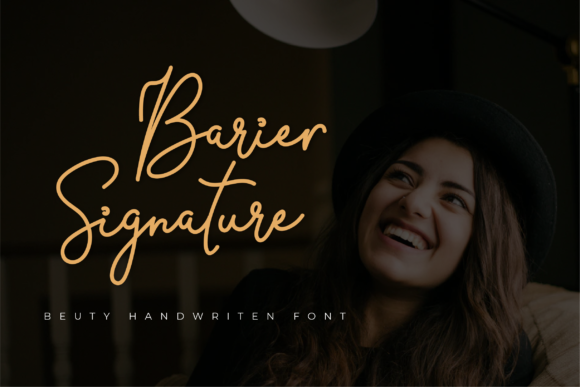
Barier Signature Font for Elegant Web Design
Elevating Hero Sections with Barier Signature Script Handwritten Fonts
When integrating Barier Signature into high-impact hero sections, this Script Handwritten typeface serves as a powerful anchor for visual hierarchy and immediate brand recognition. As web designers, we understand that the first three seconds of user engagement are critical, and utilizing premium Fonts like Barier Signature can significantly reduce bounce rates by establishing an instant emotional connection. This font simplifies elegance into one truly outstanding handwritten aesthetic that translates exceptionally well to large-scale digital displays, where the intricate details of the letterforms can be appreciated without sacrificing legibility.
In conversion-focused landing pages, Barier Signature functions best as a primary display font for main headlines or value propositions. Its flowing, organic structure contrasts effectively against rigid grid layouts and geometric sans serif body copy, creating a dynamic tension that guides the user’s eye toward key content areas. For SaaS founders or creative entrepreneurs building personal brands, this typeface adds a layer of bespoke craftsmanship that generic system fonts cannot replicate. When deploying this font in hero banners, ensure you are utilizing modern webfont formats like WOFF2 to maintain performance speeds while delivering crisp rendering on retina displays. The versatility of Barier Signature allows it to bridge the gap between luxury editorial design and accessible digital storytelling, making it an ideal choice for brands that need to communicate sophistication without appearing aloof.
Optimizing Barier Signature Readability for Mobile Interfaces
Implementing Barier Signature within responsive mobile environments requires careful attention to sizing and spacing to ensure this Script Handwritten style remains clear across all viewport widths. While desktop layouts offer ample horizontal space for elaborate swashes, mobile screens demand a more disciplined approach when using decorative Fonts to prevent text from becoming illegible or causing horizontal scrolling issues. From a UI design perspective, Barier Signature should be scaled generously on touch devices; a minimum font size of 24px to 30px is often necessary for script typefaces to retain their character integrity and stroke contrast on smaller screens.
For online stores and app interfaces, avoid using Barier Signature for functional UI elements such as navigation menus, form labels, or small buttons. Instead, reserve this typeface for decorative accents, section dividers, or short promotional callouts where readability is less dependent on rapid scanning. When placing Barier Signature over background images or video loops, always apply a subtle overlay or text shadow to maintain WCAG accessibility standards. The font’s natural elegance can easily get lost against busy textures, so high-contrast pairings are essential for maintaining professional polish. By treating Barier Signature as a specialized tool rather than a utility font, designers can preserve its artistic impact while ensuring the overall user experience remains frictionless and intuitive.
Barier Signature for Boutique E-Commerce and Product Branding
Digital product creators and shop owners will find that Barier Signature provides the perfect typographic voice for luxury goods, artisanal products, and lifestyle brands within the Script Handwritten category. In the competitive landscape of e-commerce, typography acts as a silent salesperson, and selecting distinctive Fonts helps differentiate a boutique store from mass-market competitors. Barier Signature simplifies elegance into one truly outstanding handwritten font that pairs naturally with product photography, enhancing the perceived value of items ranging from handmade jewelry to premium skincare. Its versatile personality appeals to a wide range of crafty ideas, making it suitable for everything from digital packaging mockups to website category headers.
When designing for conversion, remember that Barier Signature evokes feelings of exclusivity and care. This psychological trigger is particularly effective for high-ticket items where the purchase decision is emotional rather than purely transactional. Ensure that your CSS implementation includes appropriate line-height adjustments, as script fonts often have taller ascenders and deeper descenders that can clash with surrounding elements if not properly managed.
Strategic Font Pairing with Barier Signature for Digital Hierarchy
Achieving balanced web typography involves pairing Barier Signature with complementary typefaces that ground its expressive Script Handwritten energy without competing for attention. Successful font pairing is about creating contrast, and because Barier Signature is inherently ornate, it demands a partner that offers stability and neutrality. Minimalist geometric sans serif Fonts like Montserrat, Inter, or Outfit serve as excellent foils, providing clean legibility for body text, captions, and interface elements while allowing Barier Signature to shine as the focal point. This combination supports a clear visual hierarchy, ensuring users can distinguish instantly between decorative headings and actionable information.
For editorial websites or coaching platforms seeking a warmer tone, consider pairing Barier Signature with a refined serif font like Playfair Display or Lora for subheadings. This creates a layered typographic system that feels established and trustworthy. However, avoid pairing Barier Signature with other script or highly decorative display fonts, as this creates visual noise and dilutes the brand message. When setting up your design system or CSS variables, define specific roles for Barier Signature—strictly limiting it to H1s, H2s, or accent classes—to prevent scope creep. Consistent application is key to building a recognizable online identity. Additionally, always verify commercial licensing terms before deploying Barier Signature on client sites or digital templates, ensuring that your usage aligns with webfont embedding permissions and distribution rights for digital products.
Enhancing Content Marketing Assets with Barier Signature Typography
Content marketers and bloggers can leverage Barier Signature to transform standard articles and social media graphics into visually arresting experiences using this Script Handwritten aesthetic. In an era of content saturation, unique typography stops the scroll, and incorporating artistic Fonts into blog headers, Pinterest pins, and Instagram carousels increases shareability and brand recall. Barier Signature simplifies elegance into one truly outstanding handwritten font that works exceptionally well for quote cards, pull quotes, and stylized listicles. Its versatility appeals to a wide range of crafty ideas, from letterheads and titles to stationery, making it a cohesive thread that ties together disparate content pieces across multiple platforms.